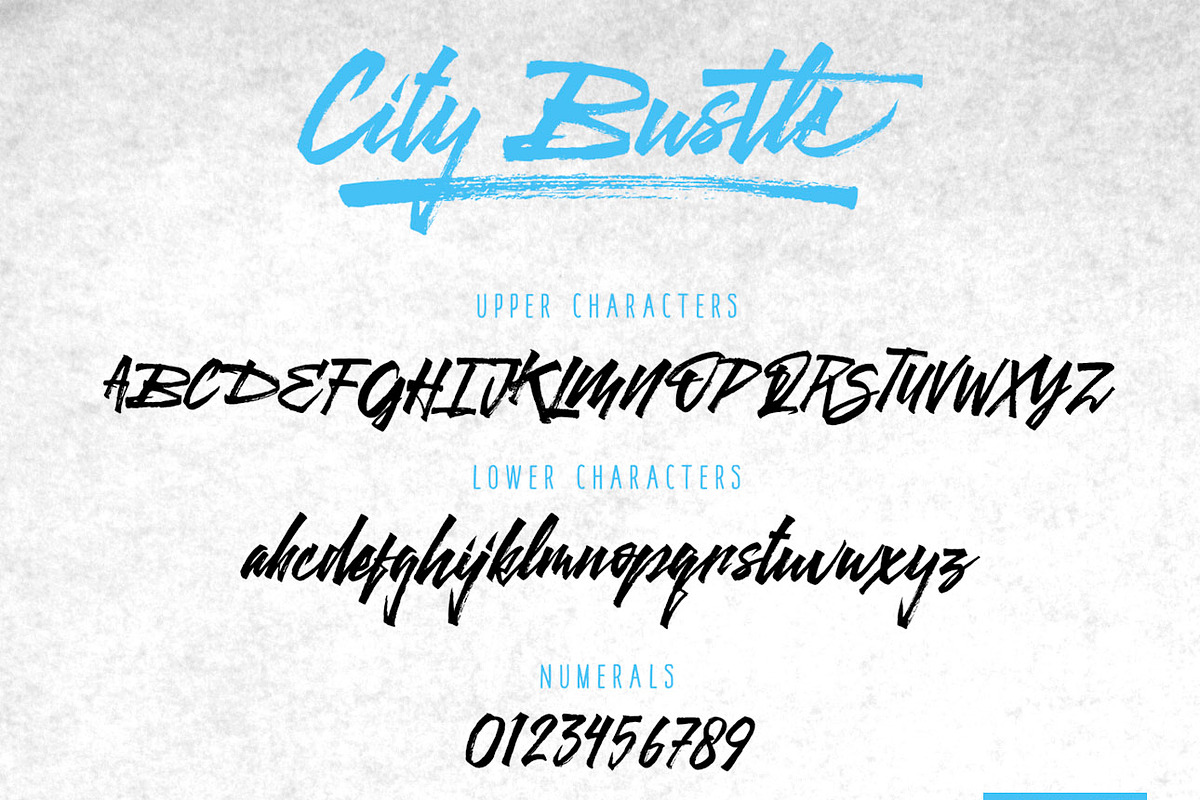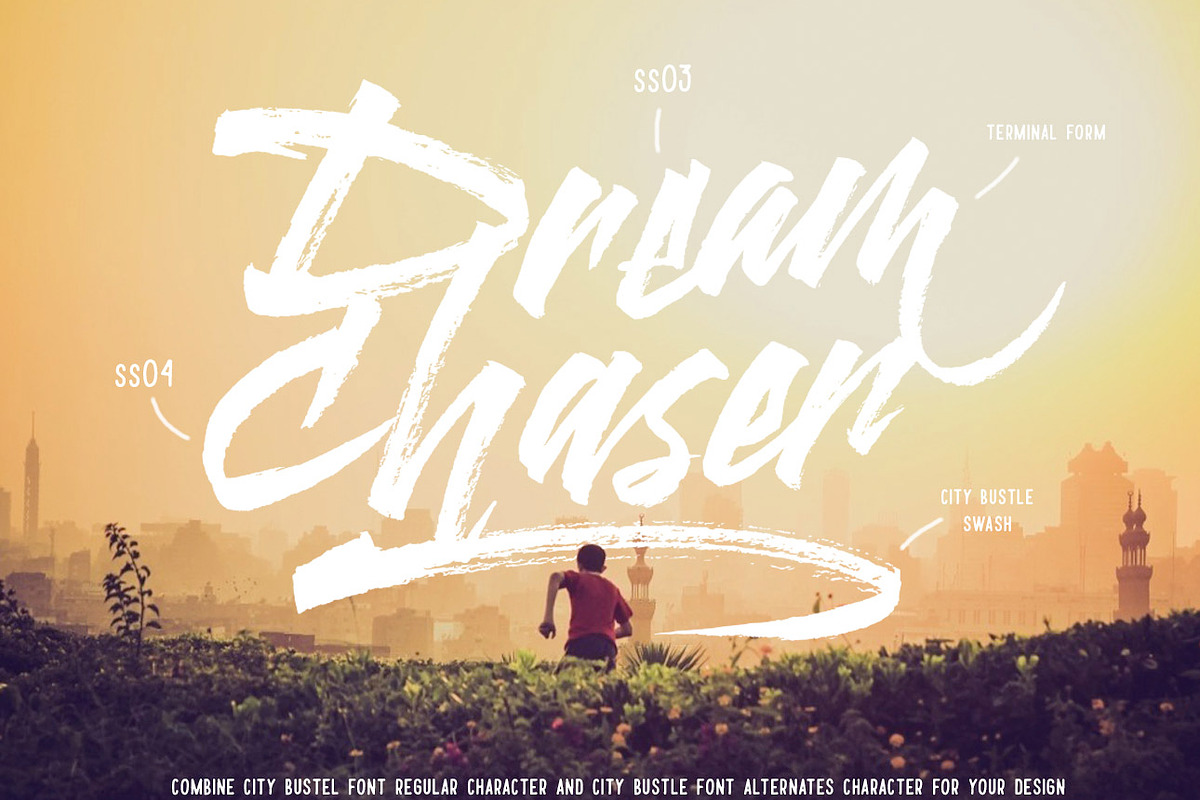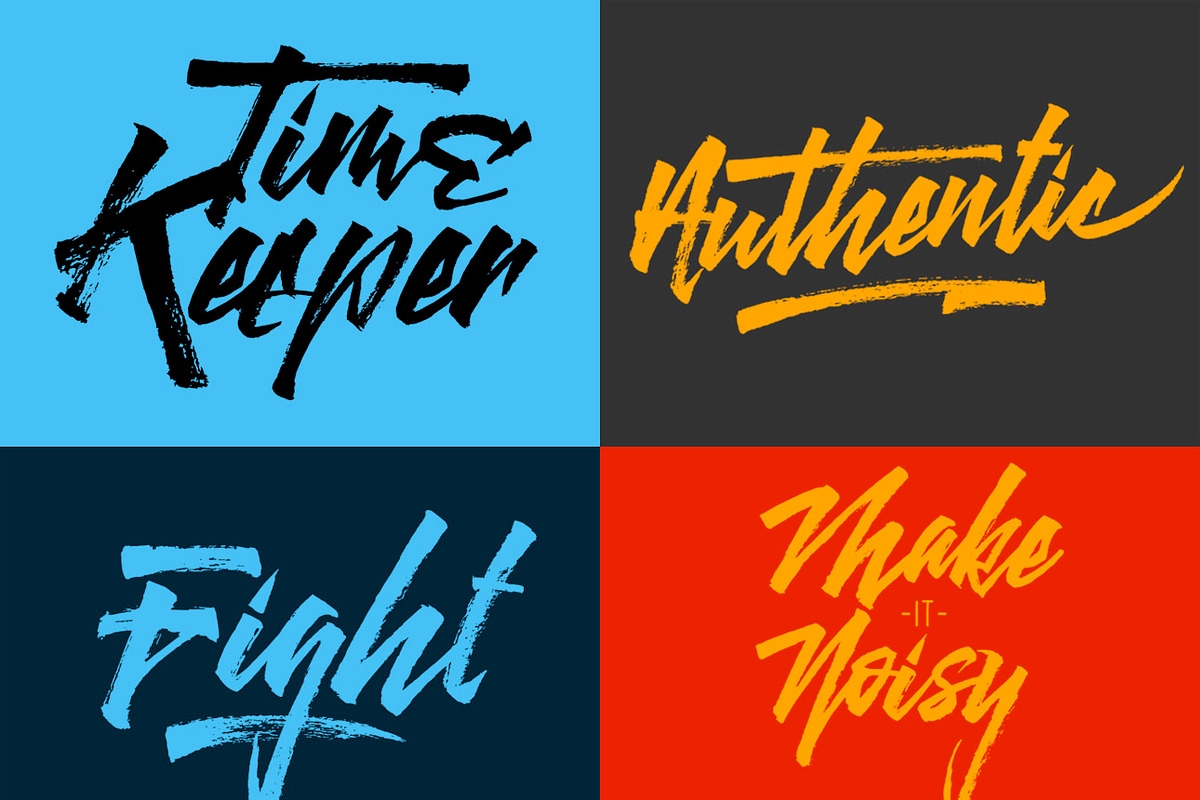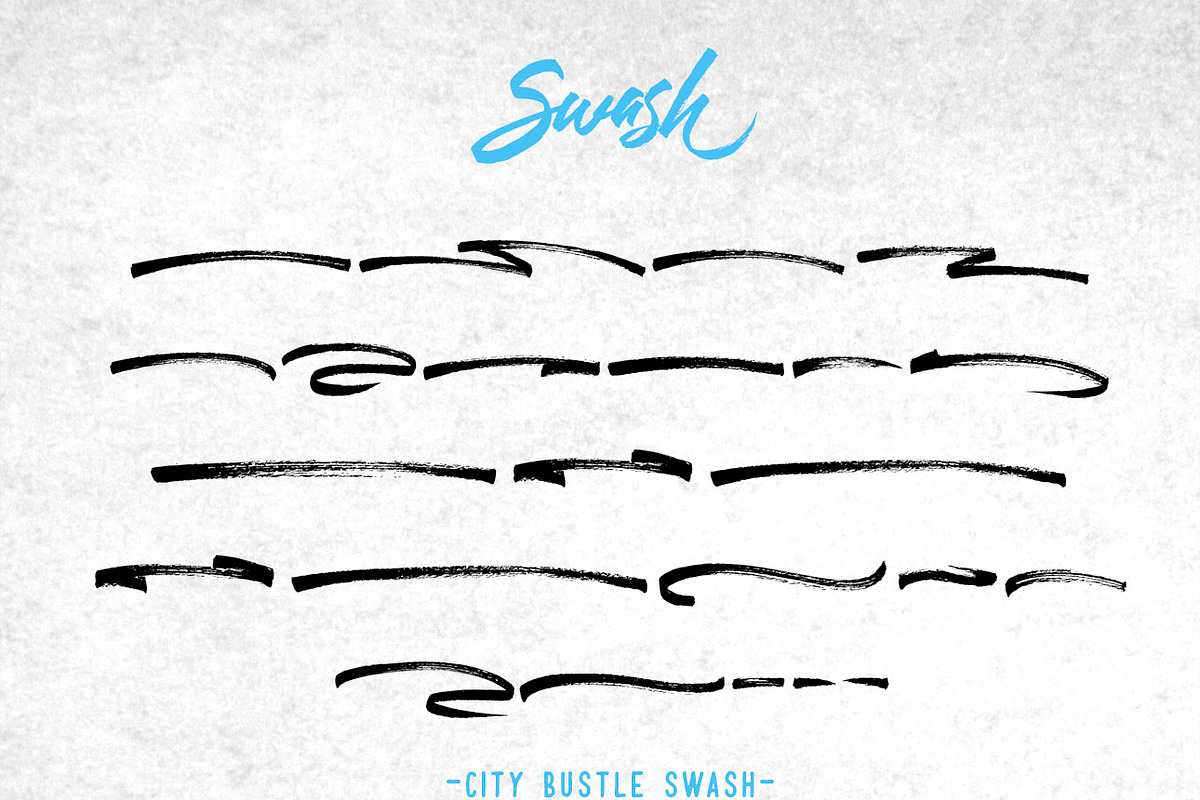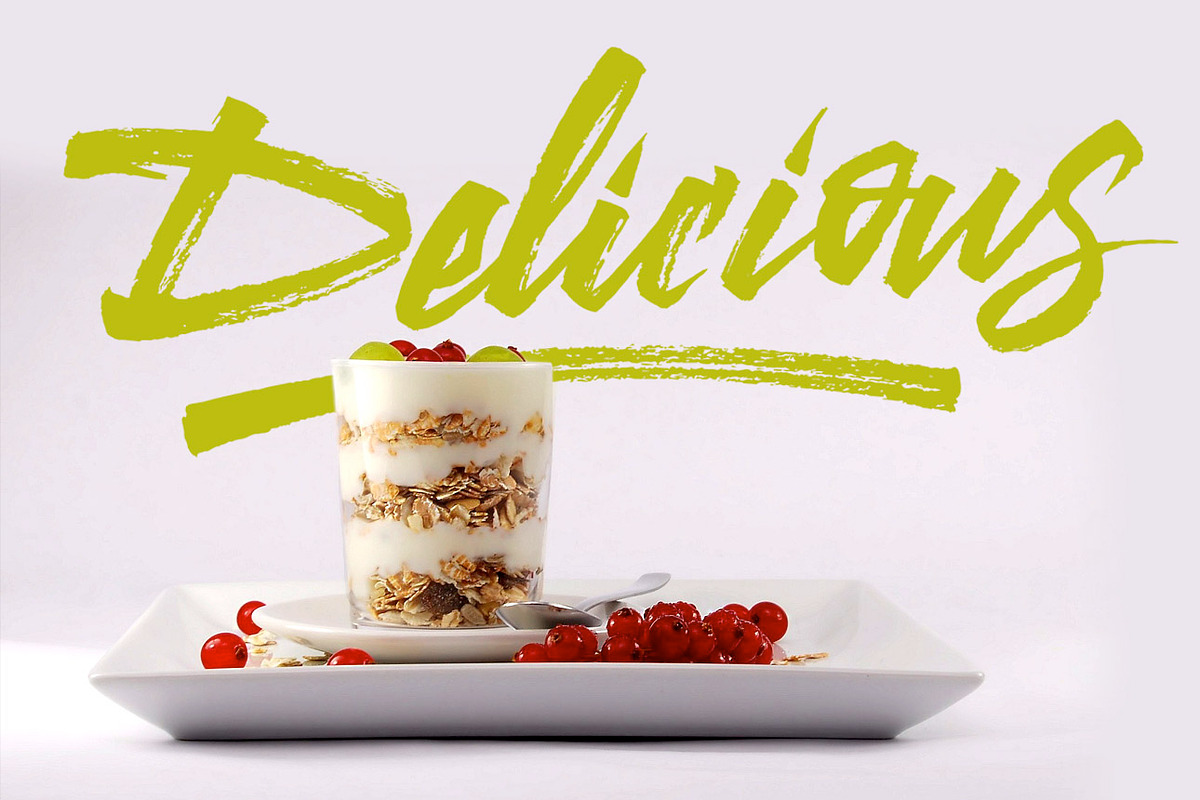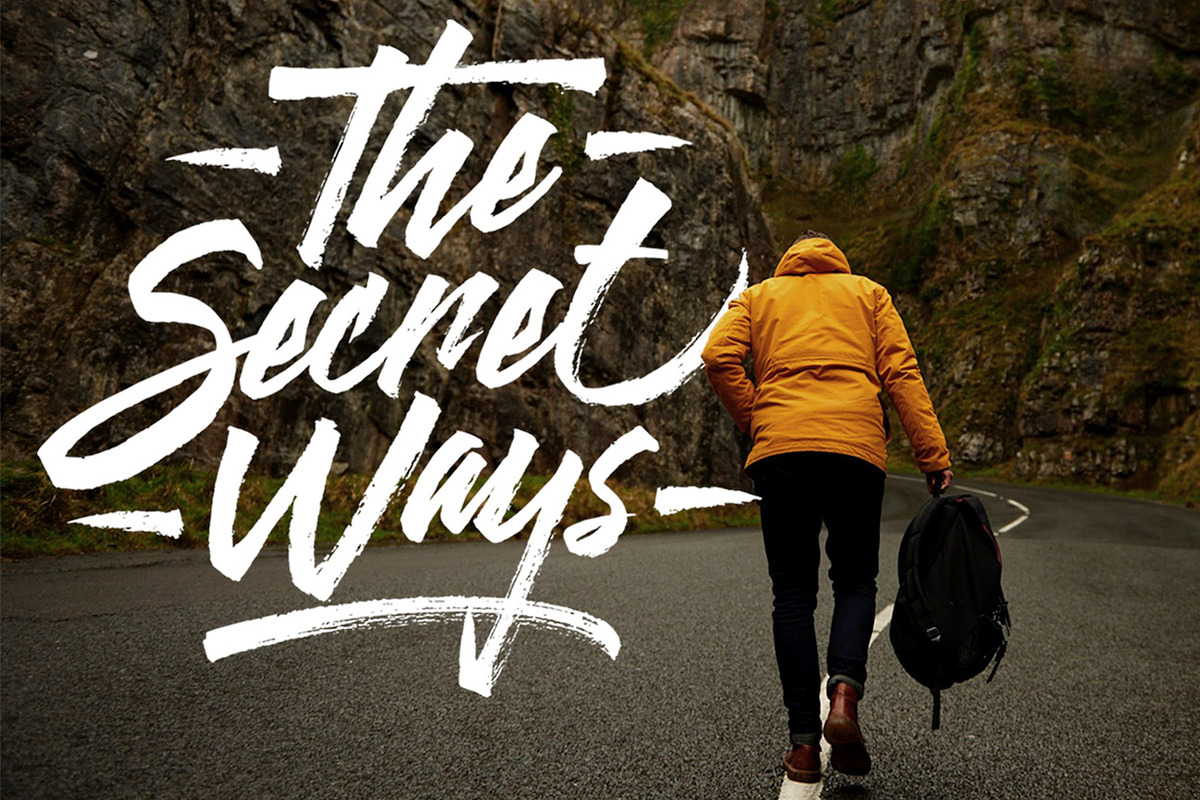
City Bustle brush font
City Bustle brush font by Qiwbrother Studio is a font selected for branding, posters, packaging, typography.
- City Bustle also equipped with 3 alternate characters font, so you can combain regular characters with alternate characters in any design yo
- City bustle with 2 characters alternate up and low can be combined with regular letters, which makes the character a different letter in eac
- There are 26 City Bustle swash characters (.ttf) that you can use as an additional ornament to embellish the design.
Why City Bustle brush font is worth a look
City Bustle brush font by Qiwbrother Studio fits naturally into Branding, posters, packaging, typography.